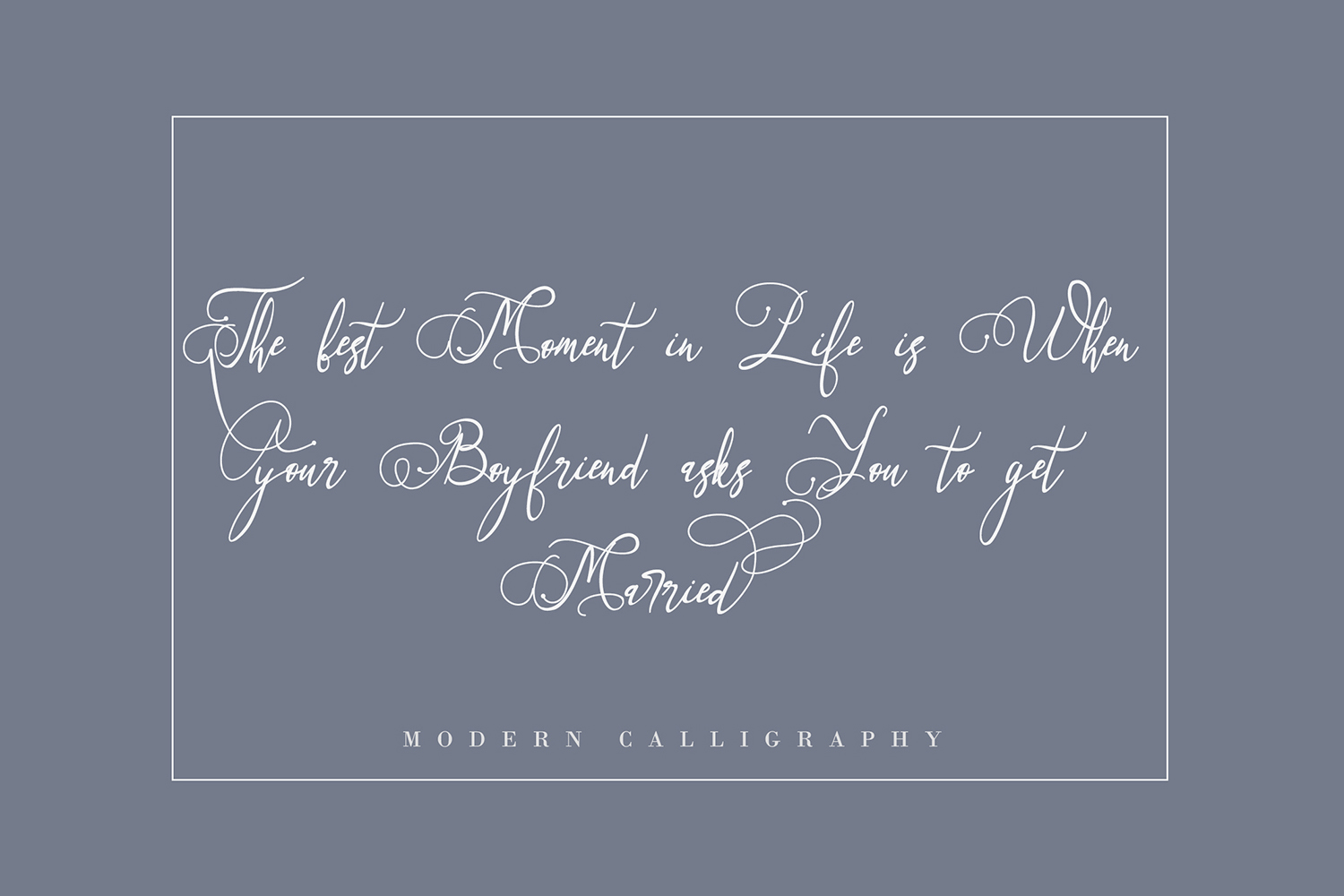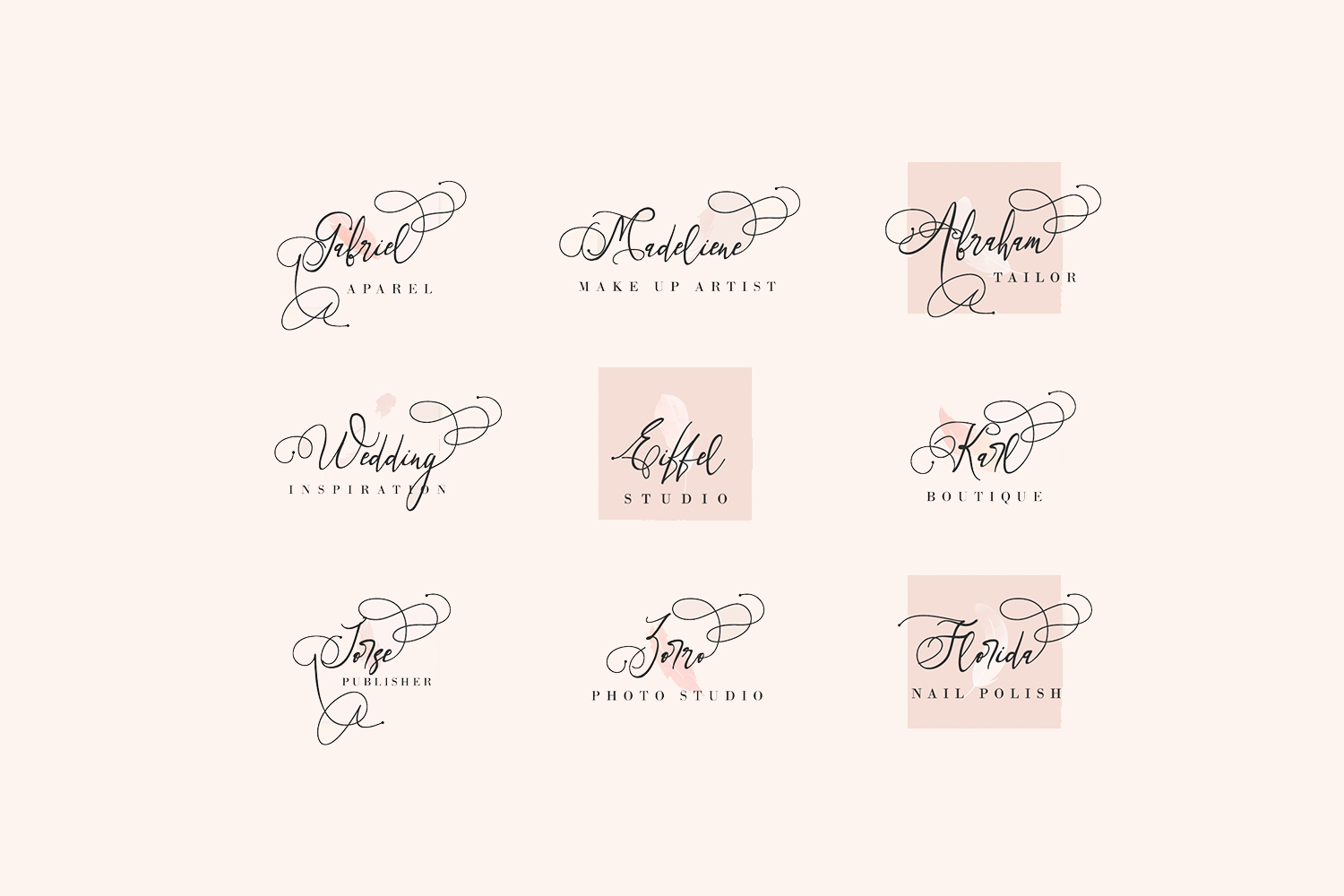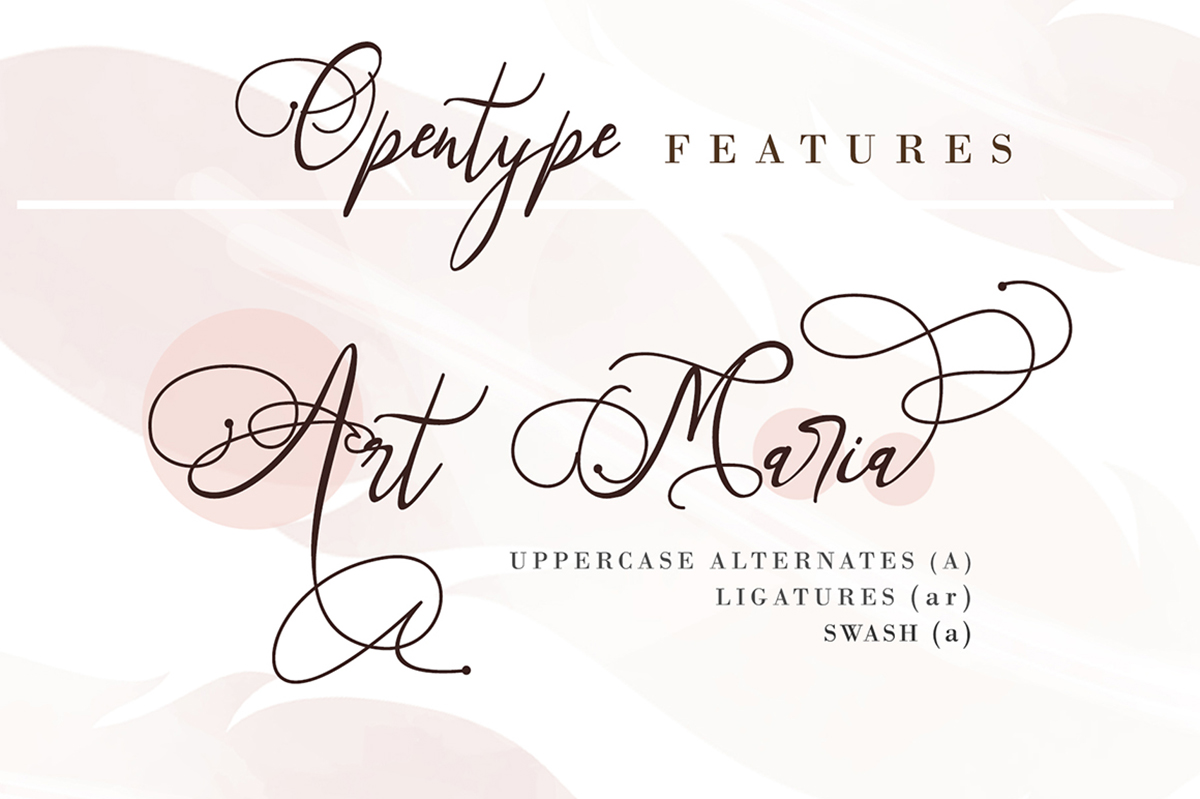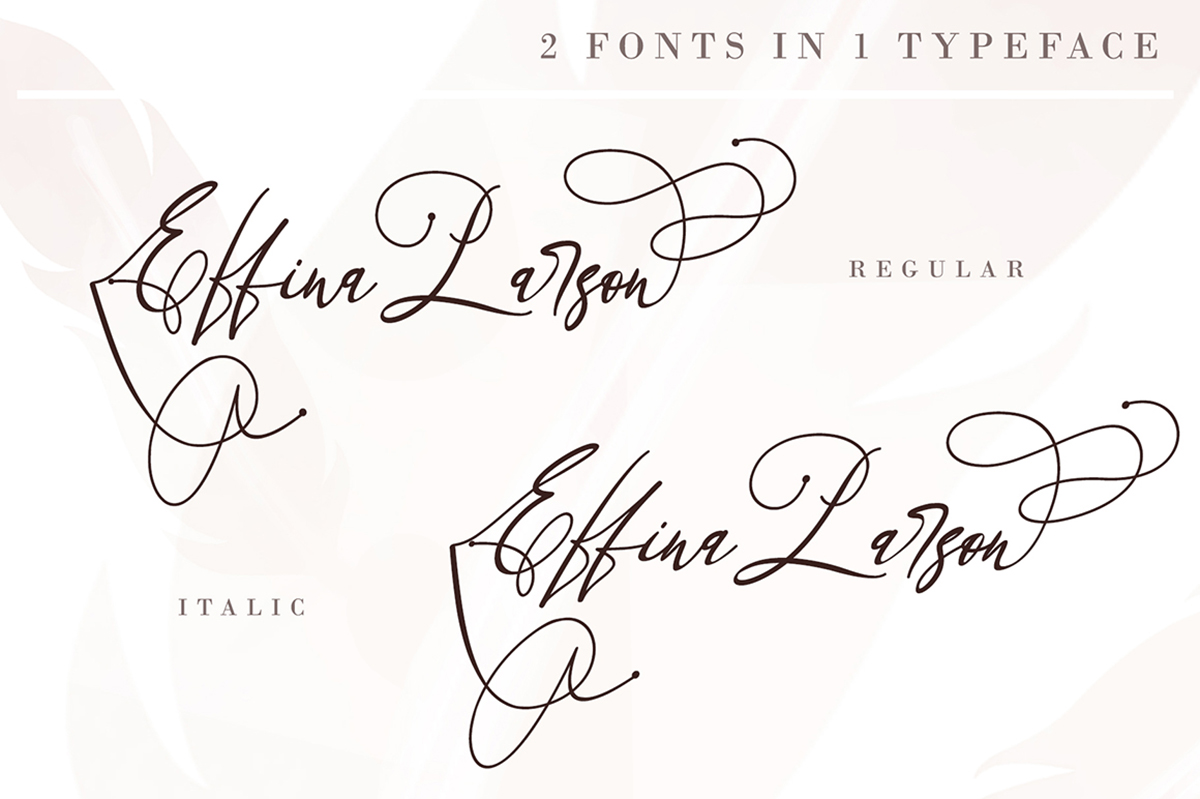
Art Maria Free Font
Art Maria Free Font is an interesting modern handwritten font that has full-featured with tons of alternate characters and OpenType features. This font compares favorably with other fonts with a calligraphic style and is very suitable for your various design projects that require a quality script font. You can use this font to create memorable romantic posters, wedding invitations, greeting cards, branding, flyers, t-shirt and pillow prints, and more. If you like it don’t forget to check out the full version.